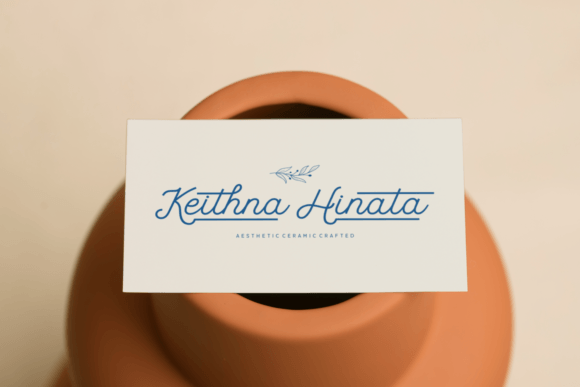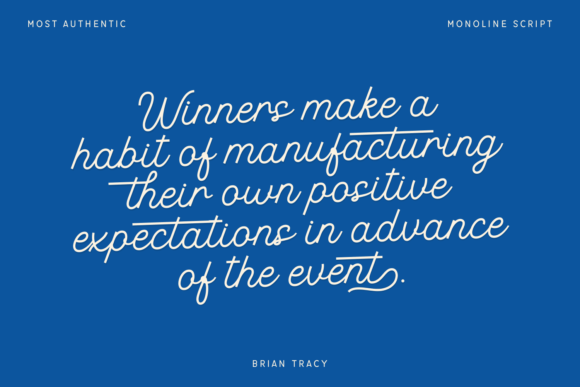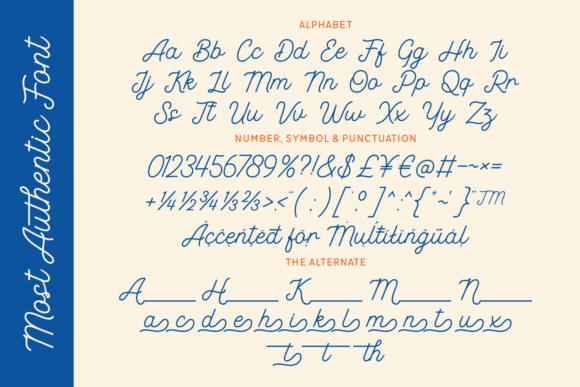
Introduction to Most Authentic Font Font
Fonts play a crucial role in design, and the Most Authentic Font font is a typeface that brings both character and versatility to any project. Whether you’re working on a branding project, a website, or a print design, the Most Authentic Font font offers a unique style that can elevate your work.
Most Authentic is a lovely and professional handwritten script font that effortlessly combines elegance with warmth.
Itβs the perfect choice for designs that seek to convey sophistication while maintaining a friendly and approachable vibe Whether for personal or professional use, Most Authentic enhances any project with its graceful charm.
Key Features of Most Authentic Font Font
Why Choose Most Authentic Font Font?
The Most Authentic Font font is more than just a typeface β it’s a design tool that helps you communicate your message with style and clarity. Its unique character set and versatile design make it suitable for a wide range of applications, from elegant invitations to bold headlines.
With its carefully crafted letterforms and balanced proportions, the Most Authentic Font font ensures readability and visual appeal across all mediums.
What makes Most Authentic Font font special?
The Most Authentic Font font stands out with its unique design, exceptional readability, and versatility across various design applications.